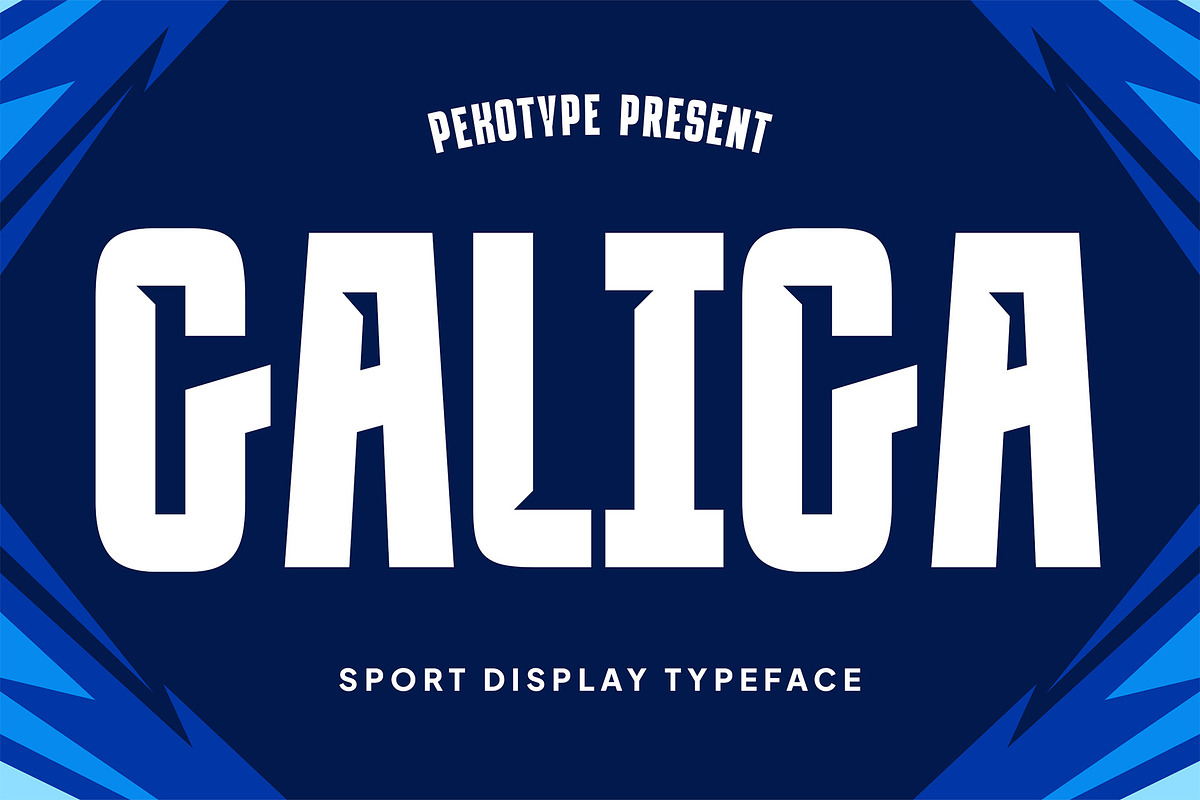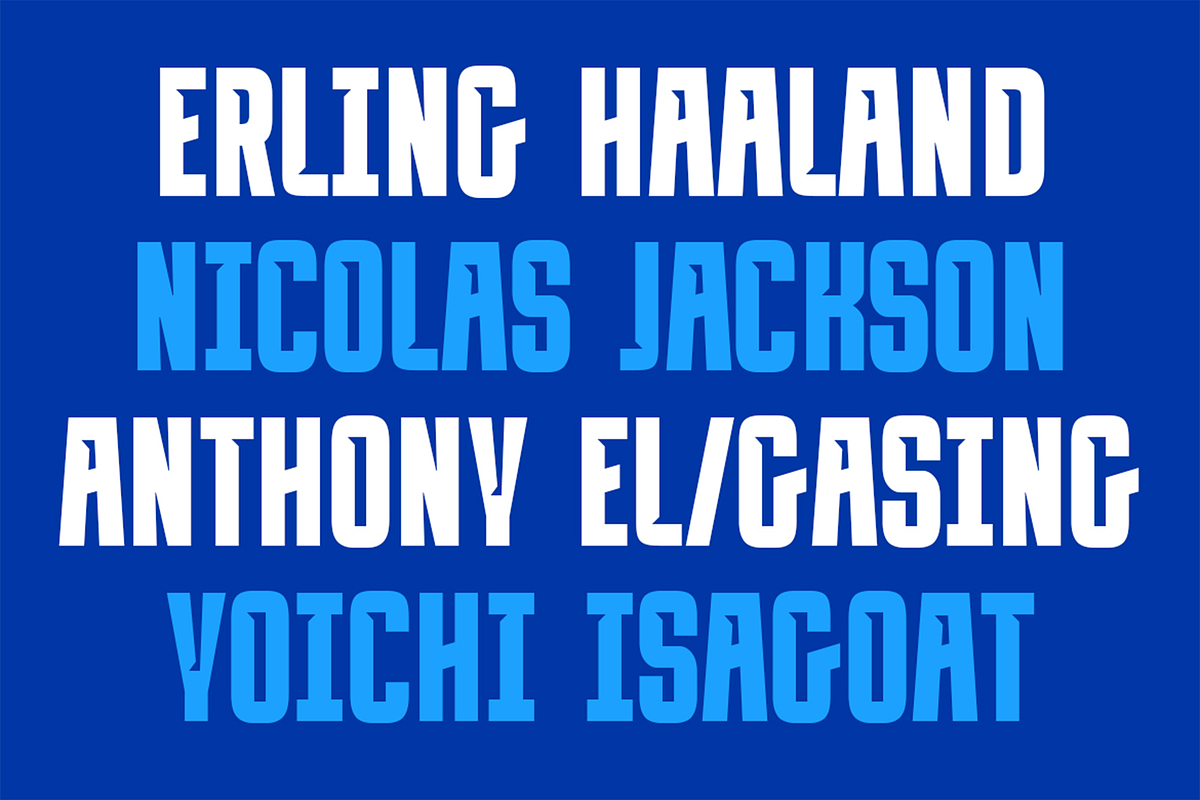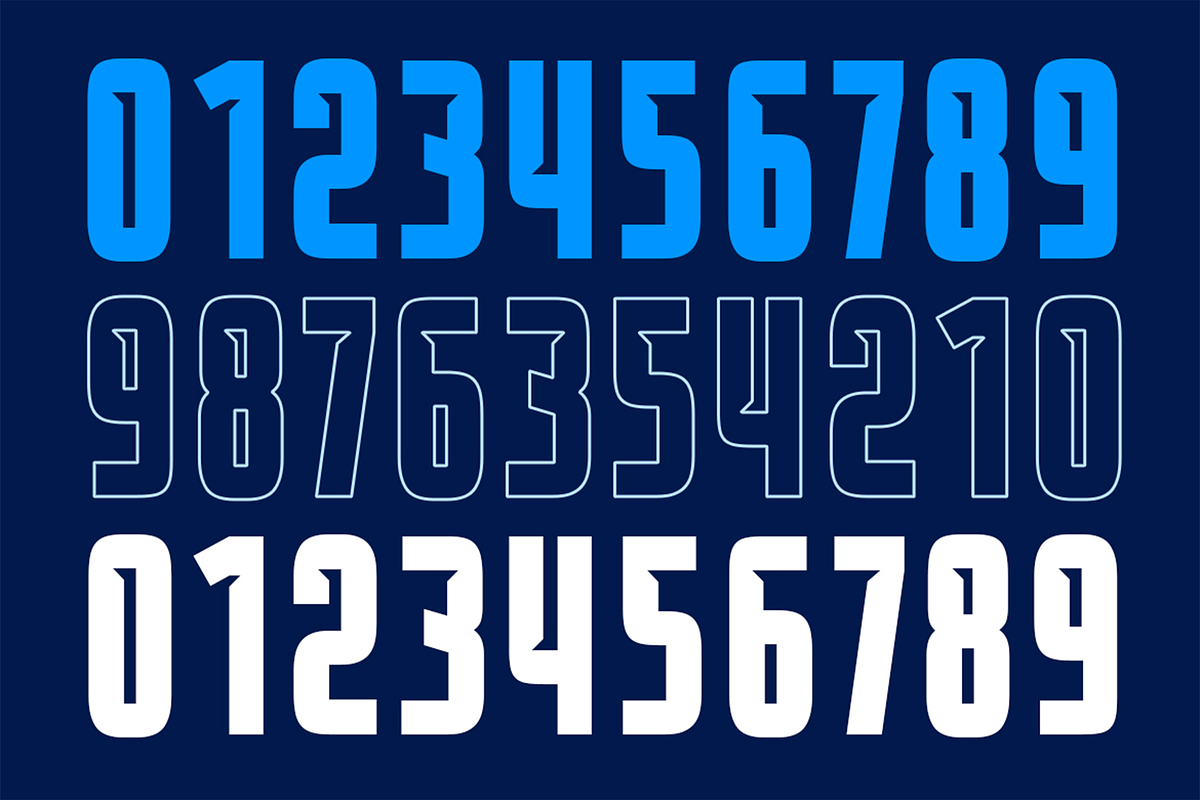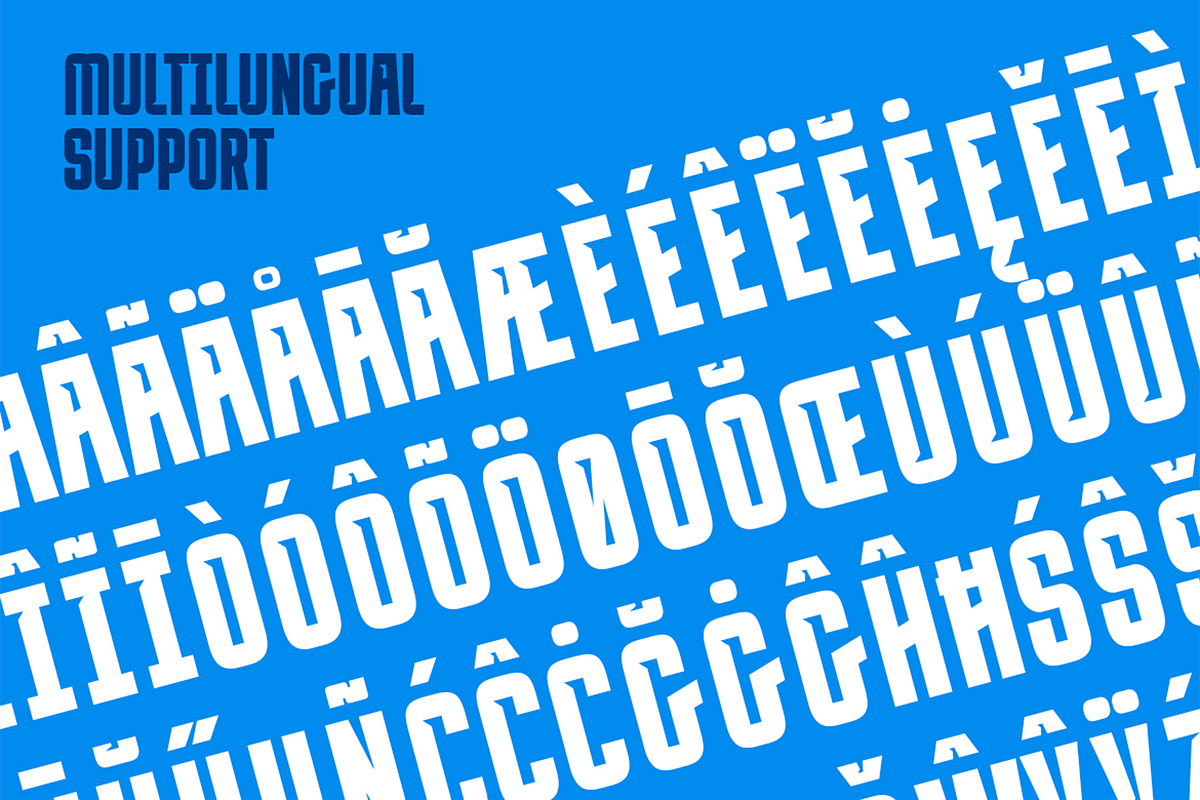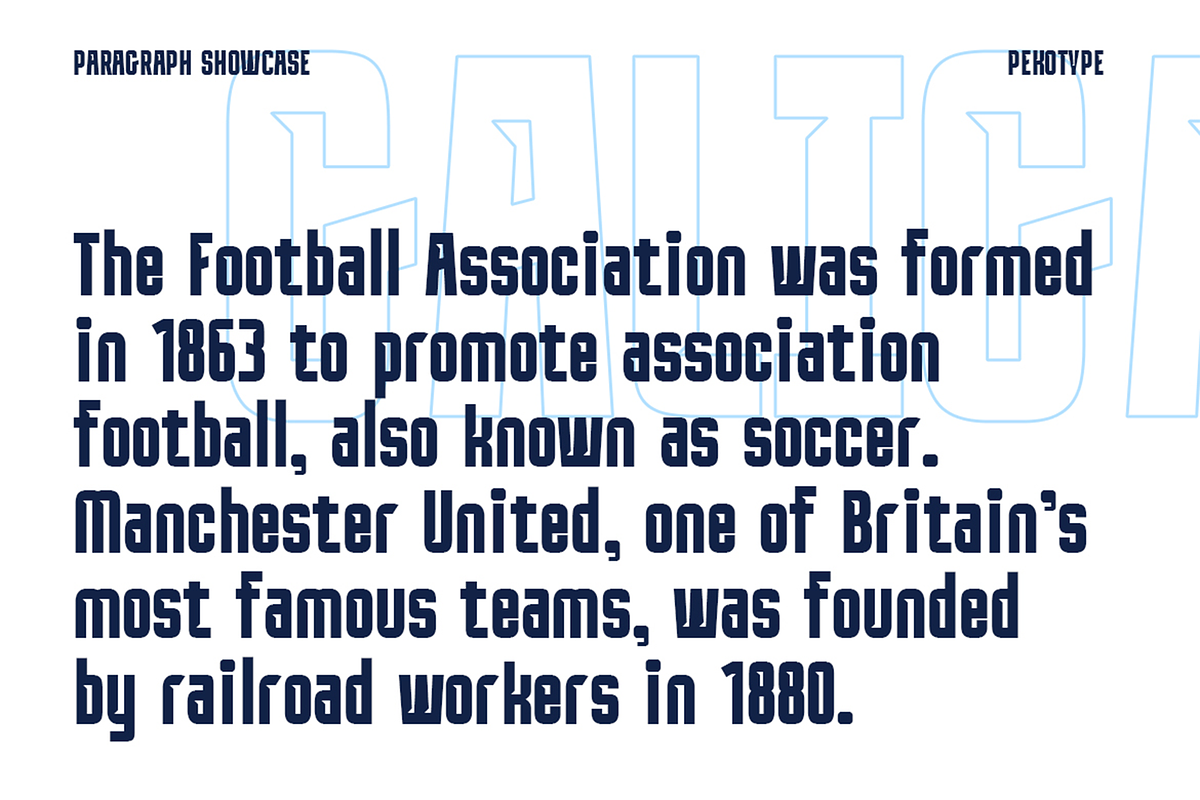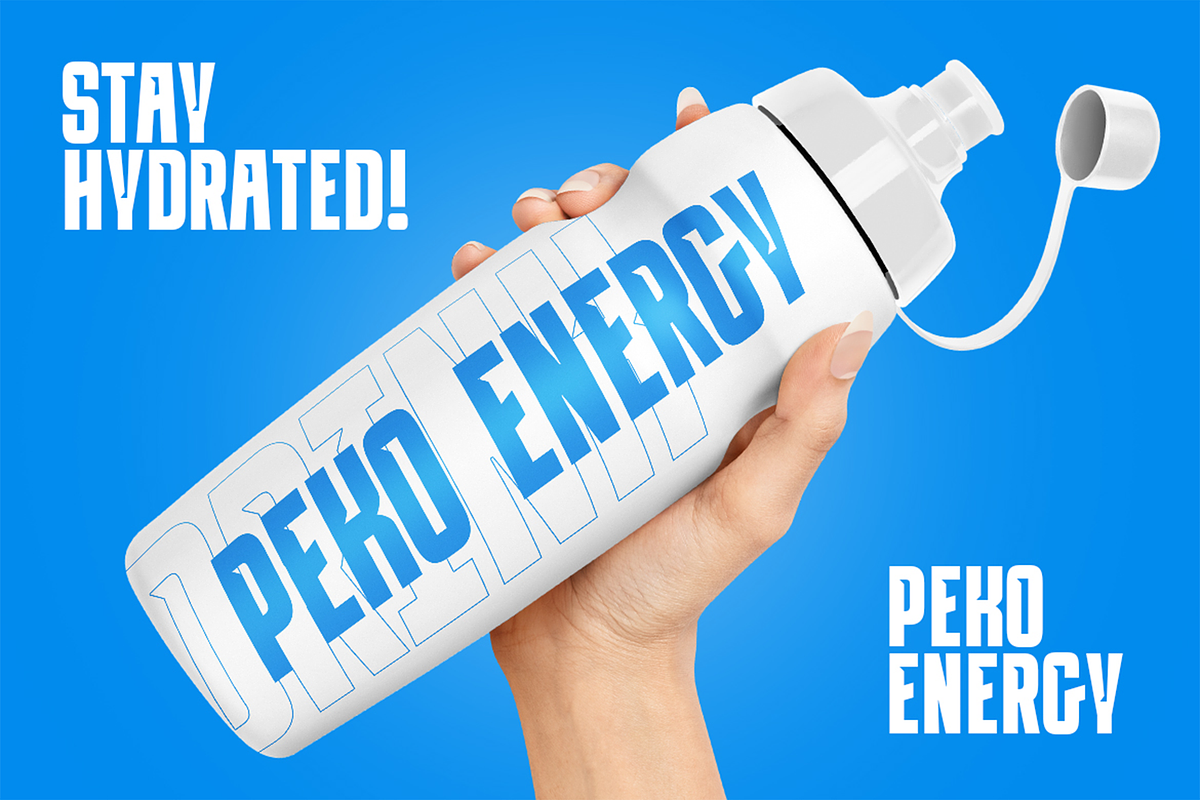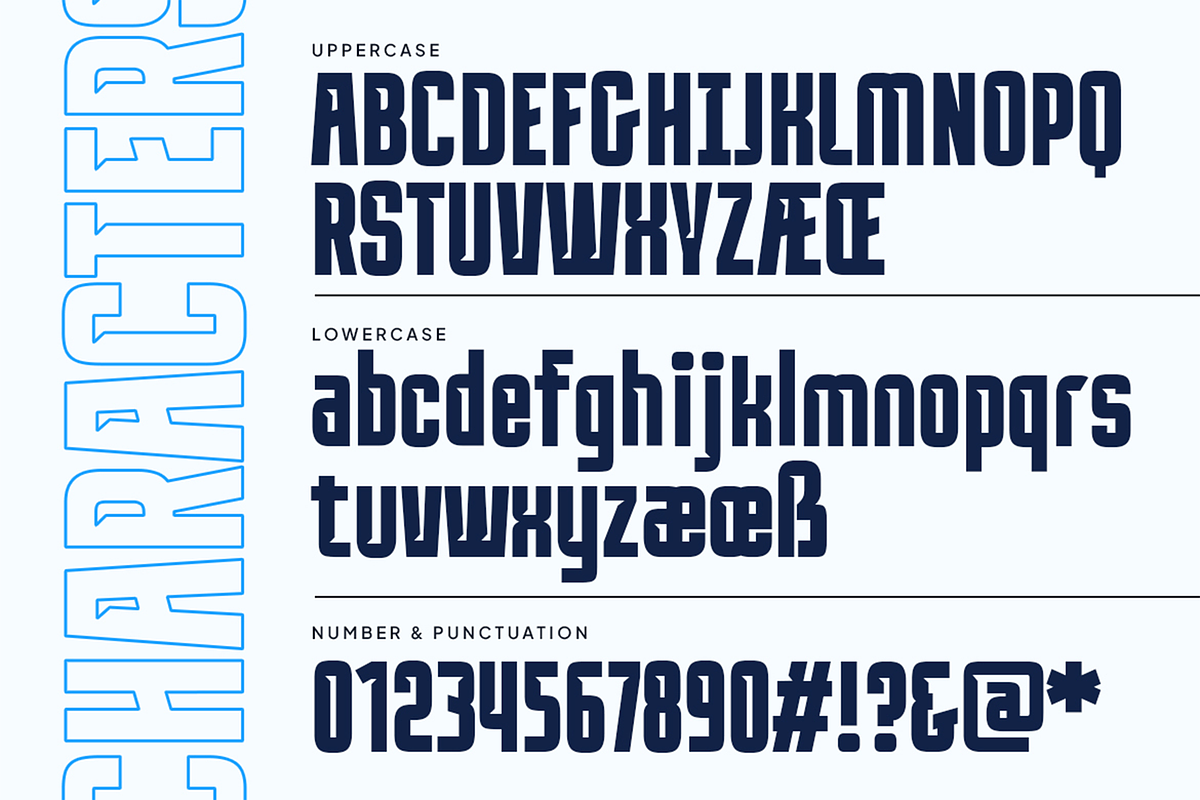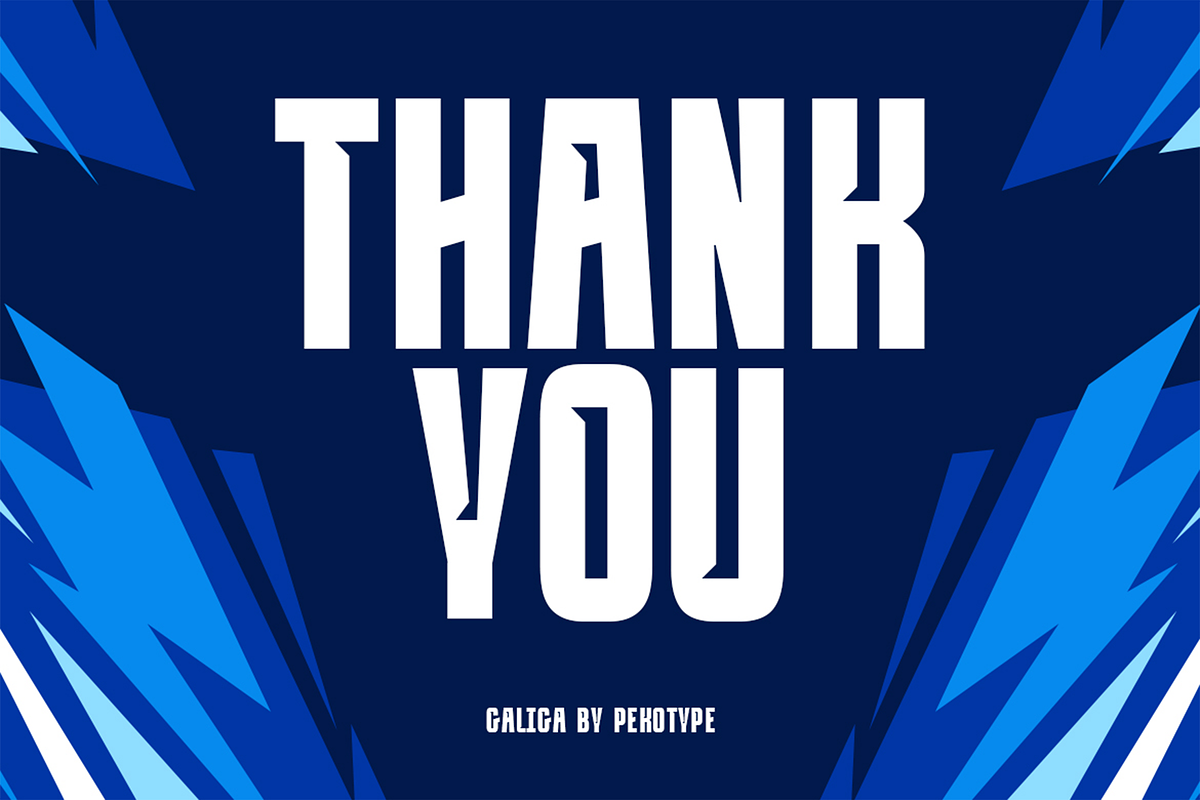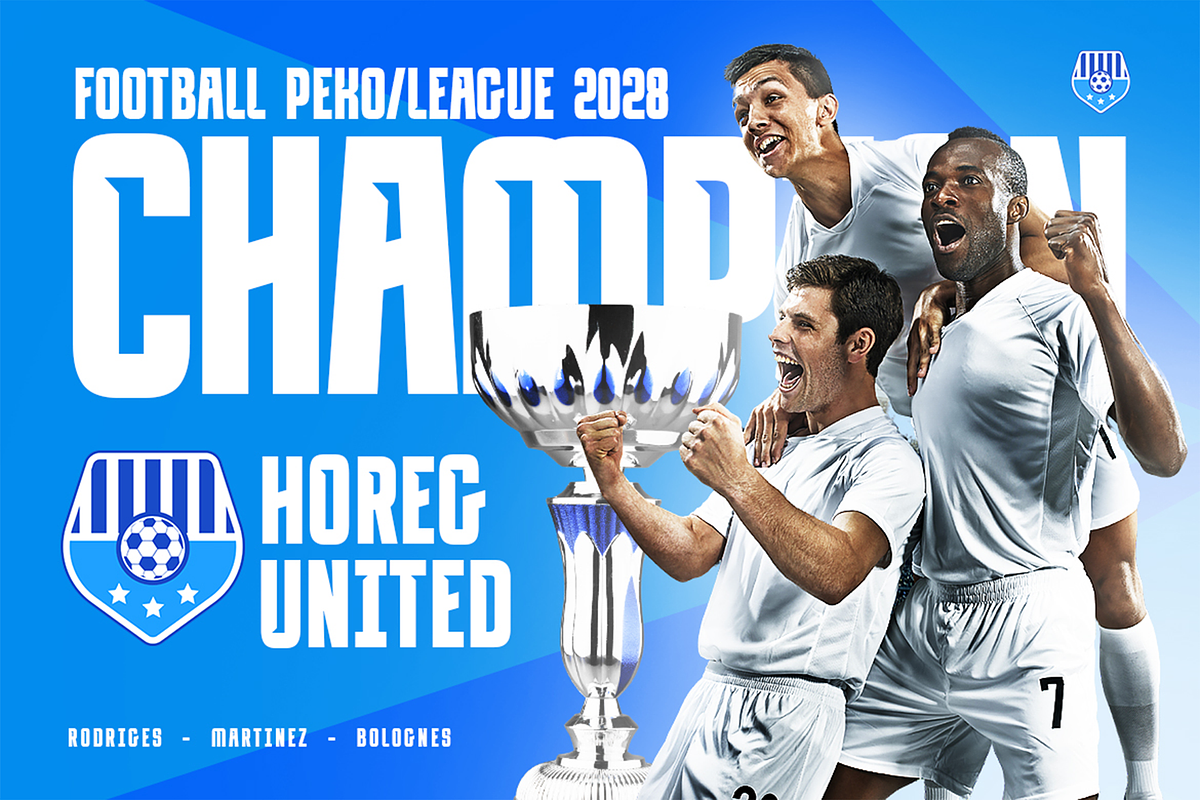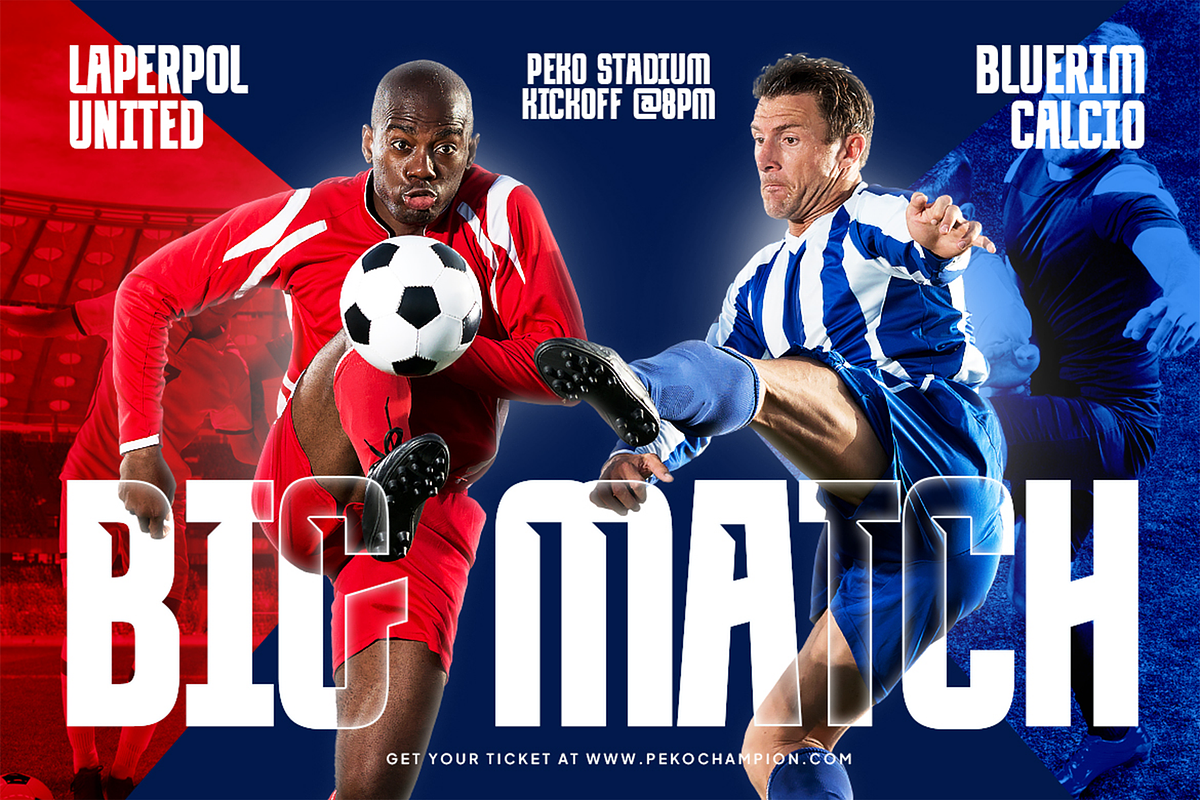
Galiga - Sans Serif Sport Typeface
Elevate your game with GALIGA, a sleek, modern typeface built to bring an electrifying presence to your designs. It is perfect for bold branding, dynamic logos, and high-impact social media graphics, especially in the realm of football and beyond. GALIGA’s strong lines and athletic style make it a powerhouse choice for sports-driven visuals, capturing attention with every letter. Embrace the energy and redefine your look with GALIGA—where modern meets momentum!